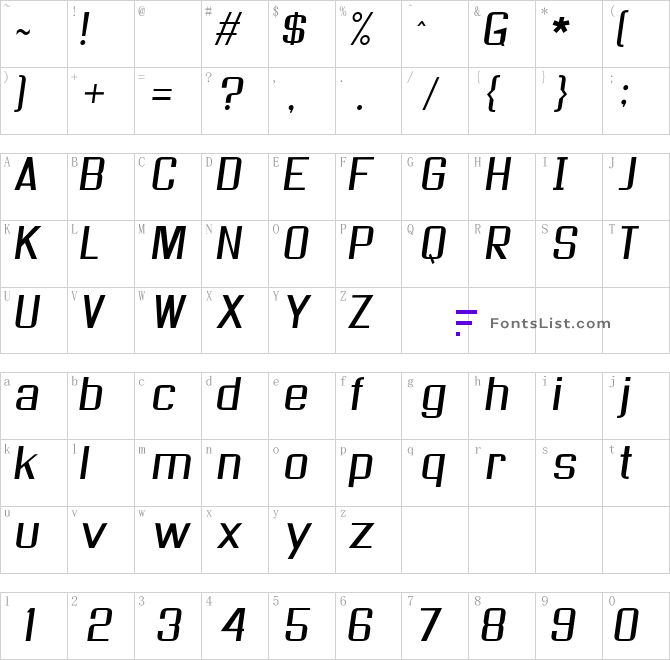
- Font Name:As seen on TV Skew
As-seen-on-TV-Skew.ttf is a very beautiful artistic font, As-seen-on-TV-Skew.ttf is widely used in the design and printing of various books and pictures,As-seen-on-TV-Skew.ttf has a strong visual impact,As-seen-on-TV-Skew.ttf is a commonly used font in newspapers, magazines and books, and is used in posters, e-commerce Poster design, store design, logo design, font design and other fields.As-seen-on-TV-Skew.